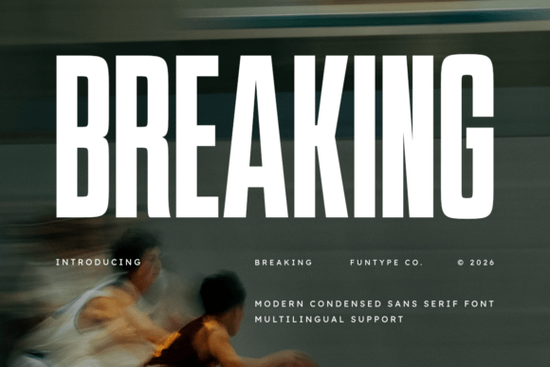
When it comes to creating impactful and dynamic designs, the Breaking Font stands out as a top choice. This modern condensed sans serif font is designed to make a strong statement, perfect for high-impact typography. Whether you're working on a bold headline, an athletic team logo, or a high-velocity digital poster, Breaking Font brings a robust and powerful presence to your projects.
Understanding the Design of Breaking Font
Breaking Font features a narrow geometric structure with solid block lines and smooth softened edges. This combination creates a visually striking and balanced layout, making it ideal for designs that need to command attention. The font's tall and perfectly balanced design gives your visuals a deeply powerful and advanced appearance, suitable for a wide range of creative applications.
Why Choose Breaking Font for Your Projects?
The versatility of Breaking Font makes it a go-to choice for designers, crafters, and print-on-demand sellers. Here are some key reasons why you might consider using this font:
- High-Impact Typography: Perfect for strong headlines and branding elements that need to stand out.
- Athletic and Active Branding: Ideal for sports logos, team uniforms, and other athletic branding needs.
- Modern and Dynamic Aesthetic: The clean, geometric lines and smooth edges give a contemporary and professional look.
Using Breaking Font in Different Creative Projects
Whether you're designing a digital poster, a product label, or a website, Breaking Font can add a touch of strength and dynamism to your work. Let's explore some specific use cases:
- Digital Posters: Use Breaking Font for event posters, promotional materials, and social media graphics to grab attention and convey a sense of urgency.
- Product Branding: Incorporate it into packaging designs, labels, and branding materials to create a strong and memorable brand identity.
- Website Headlines: Utilize Breaking Font for main headings and subheadings on your website to add a bold and modern feel.
Comparing Breaking Font with Other Sans Serif Fonts
Tips for Maximizing the Impact of Breaking Font
To get the most out of Breaking Font, here are some practical tips:
- Pair Wisely: Combine Breaking Font with complementary fonts to create a balanced and harmonious design. For example, pairing it with a more neutral and clean font like Homush Font can enhance readability and visual appeal.
- Use for Emphasis: Reserve Breaking Font for key elements that need to stand out, such as headlines, titles, and important callouts. This will help draw the viewer's attention to the most critical parts of your design.
- Test on Different Platforms: Ensure that the font looks good across various devices and platforms. Test it on different screen sizes and resolutions to make sure it maintains its impact and legibility.
Final Thoughts
Breaking Font is a robust and dynamic option for anyone looking to add a strong and modern touch to their designs. Its versatility and high-impact nature make it a valuable addition to any designer's toolkit. By following the tips and considering the right use cases, you can maximize the potential of this font in your creative projects.